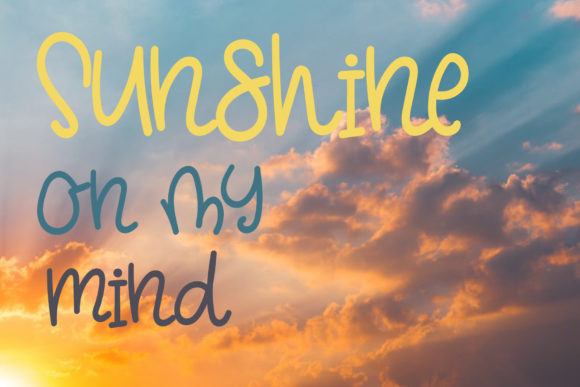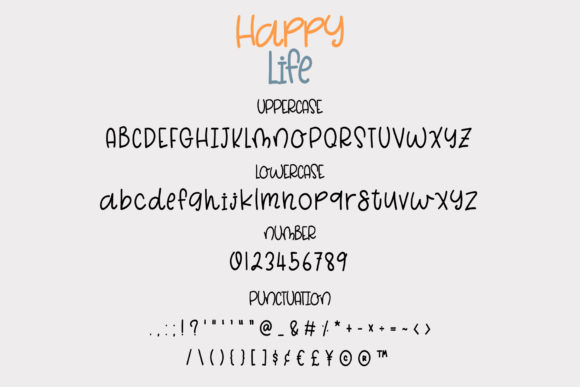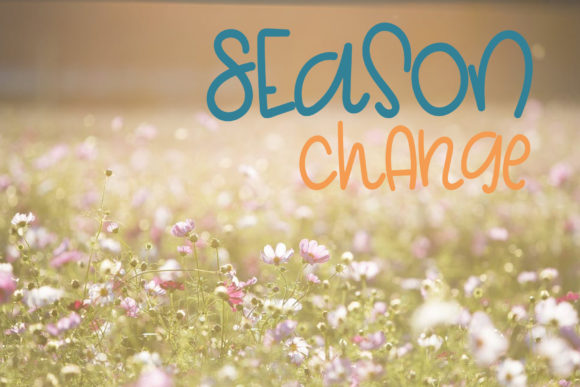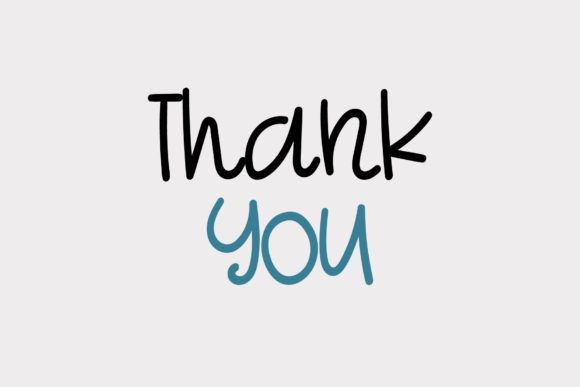
Introduction to Happy Life Font
Have you ever stared at a blank canvas, feeling stuck and unsure of where to begin? It’s a moment we’ve all experienced, whether we’re working on a personal creative project or a professional design. But then, something sparks – a color combination, a font, or in this case, the Happy Life Font. This cute, quirky, and simple handwritten font has the power to elevate even the simplest designs to new heights.
With its versatility and charming personality, the Happy Life Font is a valuable resource for designers looking to add a touch of whimsy to their work. Whether you’re working on a logo, social media graphics, or a marketing campaign, this font is sure to bring a smile to your client’s face. Plus, with a transparent background and free download options, it’s easy to incorporate into your designs.
Key Features of Happy Life Font
- High-Quality Design: Happy Life Font offers a unique, hand-drawn design perfect for creative projects, such as greeting cards, posters, and flyers.
- Unique Characteristics: The font’s distinctive, whimsical style adds a touch of personality to any design, making it perfect for creative projects and branding.
Honest Review: Happy Life Font
As a designer, I’m always on the lookout for high-quality design resources that can elevate my creative projects. The Happy Life Font is one such resource that caught my attention. On the surface, it appears to be a cheerful and vibrant font perfect for conveying positivity.
- ✨ The font is highly legible, making it perfect for body text and headlines.
- ⚠️ The font is only available in a limited number of weights, which may not be ideal for designers who need a more extensive range of options.
- ⚠️ The font may not be suitable for corporate or professional projects, as it’s a bit too playful for those types of designs.
Overall, the Happy Life Font is a solid addition to any designer’s toolkit. While it may not be perfect, its strengths outweigh its limitations, making it a great choice for designers working on creative projects that require a bit of whimsy and fun.
Happy Life Font
The Happy Life Font is versatile and can be used in a variety of creative projects, including social media graphics, blog posts, and marketing materials. Its transparent background makes it perfect for overlaying on images or videos. Whether you’re a professional designer or a hobbyist, this font is sure to bring a smile to your audience’s face.